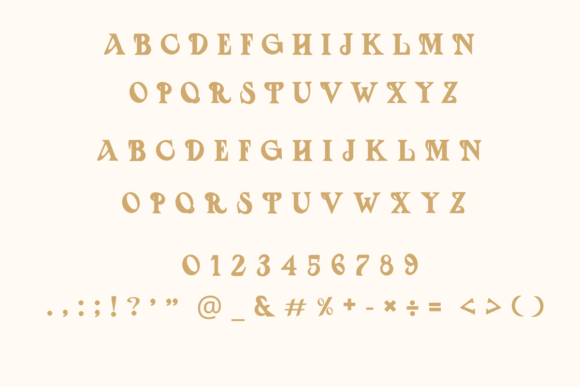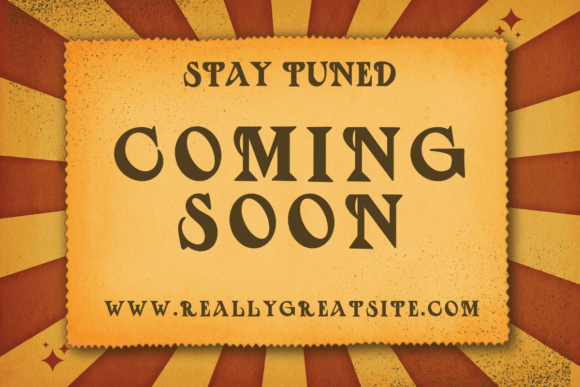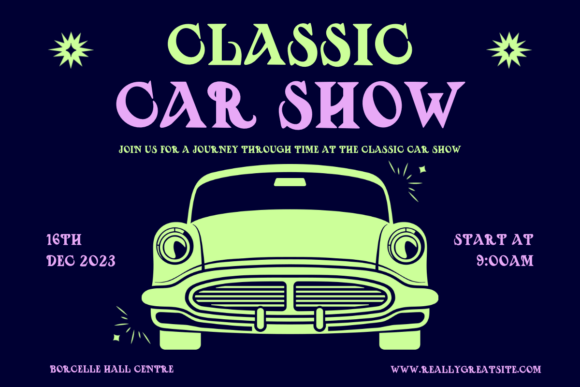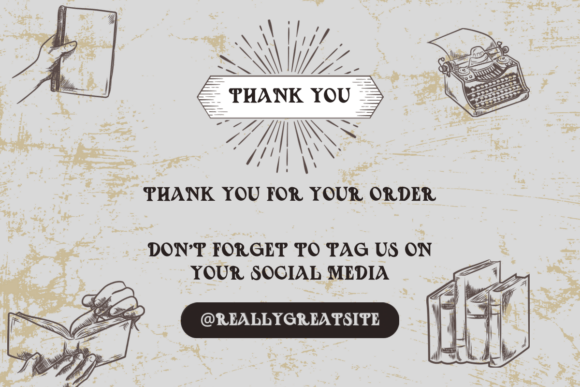
The Timeless Charm of Classic Font: A Designer’s Delight
I’ll never forget the time I was working on a vintage-themed project for a client, and I just couldn’t seem to find the perfect font to capture that nostalgic feel. The client wanted something that would transport their audience back to the good old days, but I was stuck in a design rut. That’s when I stumbled upon Classic Font, and let me tell you, it was love at first sight! 💕
Classic Font is a design gem that embodies the essence of playfully nostalgic typography. Its vintage aesthetic is simply incredible, and it’s perfect for adding a retro touch to any design idea you can think of. In this article, I’ll share my honest review of Classic Font, provide a practical guide on how to use it, and explore some similar fonts and alternatives.
- ✅ Unique and distinctive vintage aesthetic that’s sure to turn heads
- ✅ Extensive character set, including OpenType features and stylistic alternates
- ✅ Works beautifully for both digital and print designs
- ⚠️ Some users may find the font a tad too ornate for certain design projects
- ⚠️ Limited availability of certain special characters
The Designer’s Inspiration Behind Classic Font
Classic Font was inspired by the iconic typography of the 1950s and 60s. Its designer, a typography enthusiast, wanted to create a font that would capture the essence of vintage advertising and signage. The result is a font that’s both nostalgic and timeless, perfect for designers looking to add a touch of classic charm to their work.
| Font Name | Classic Font |
| Author | Sontaya |
| What type of designs is Classic Font best suited for? | Classic Font is perfect for vintage-themed designs, such as posters, flyers, and social media graphics. It’s also great for branding and packaging projects that require a touch of nostalgia. |
| Is Classic Font suitable for body text? | While Classic Font is highly legible, it’s best suited for headlines and titles. For body text, you may want to choose a font with a more traditional, serif design. |